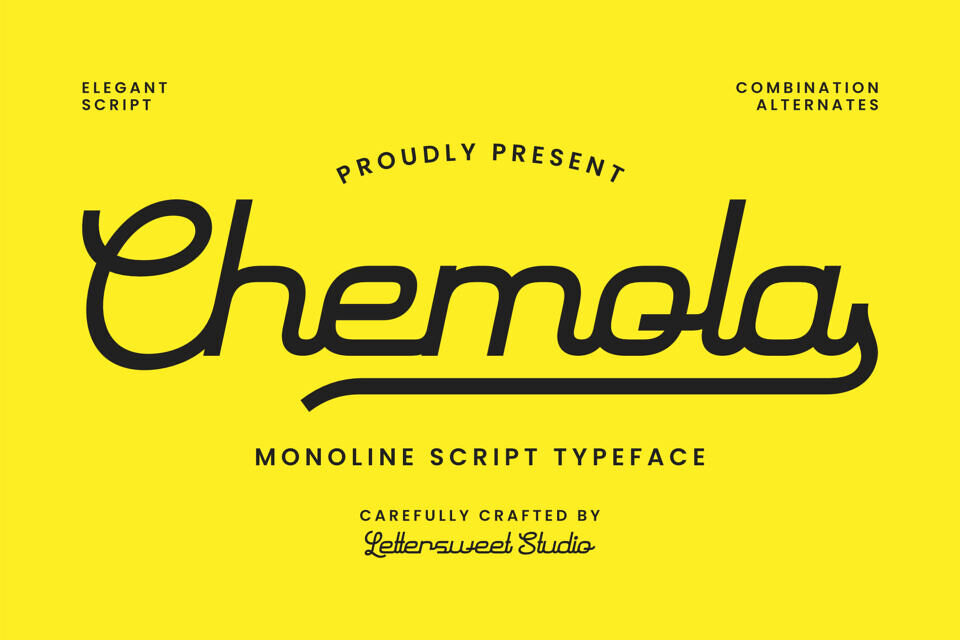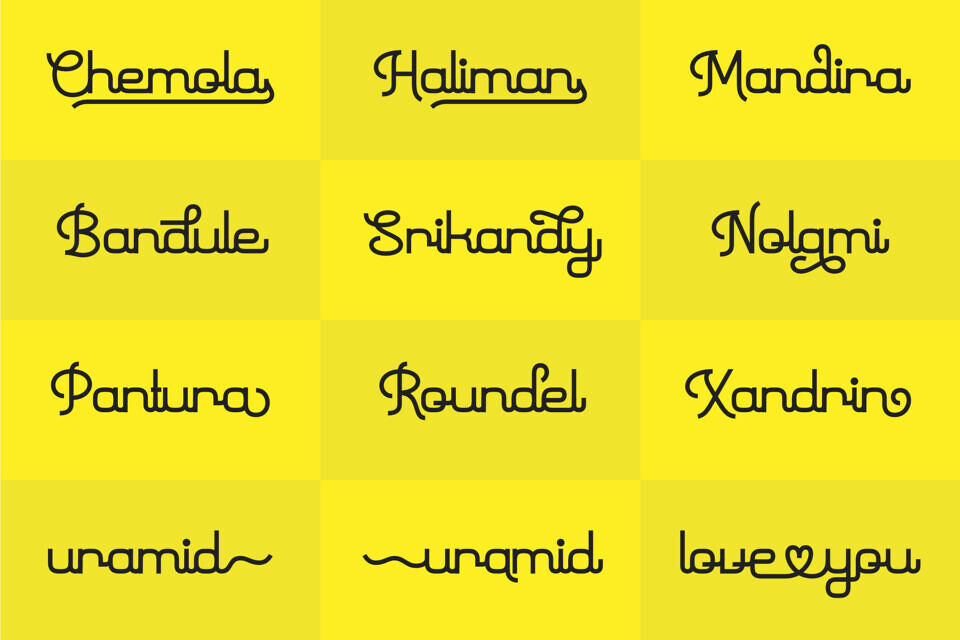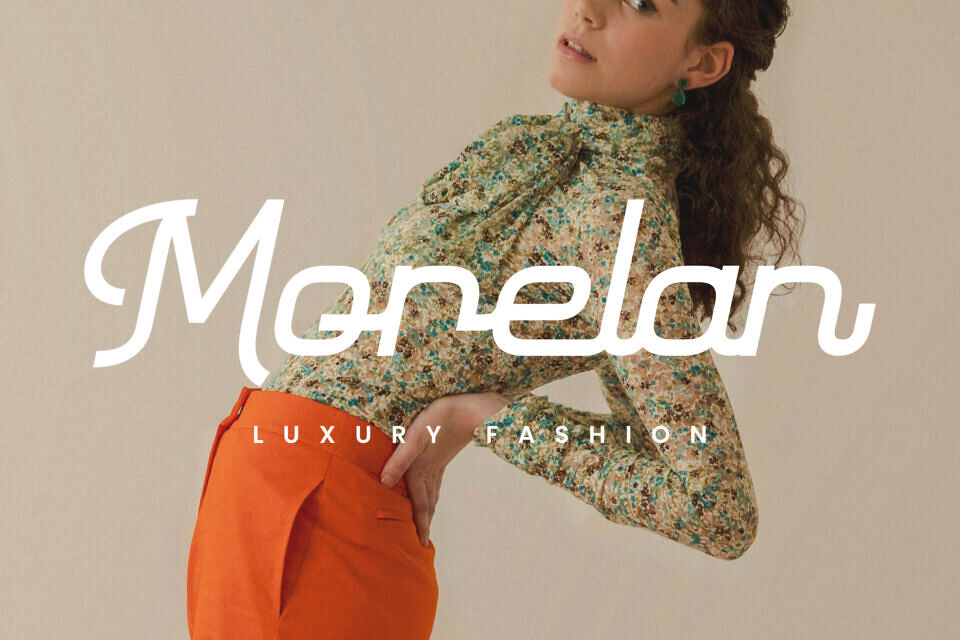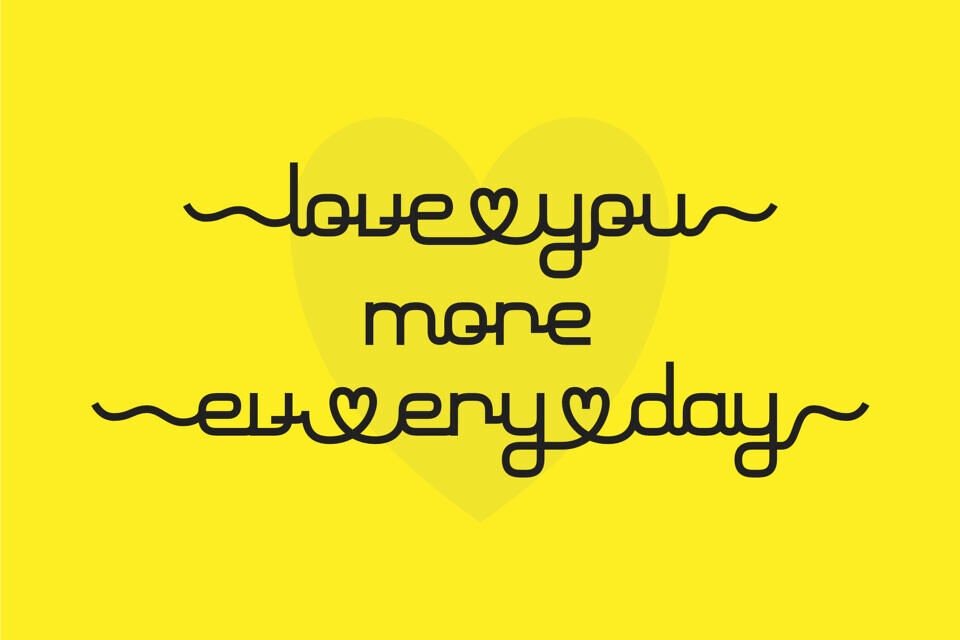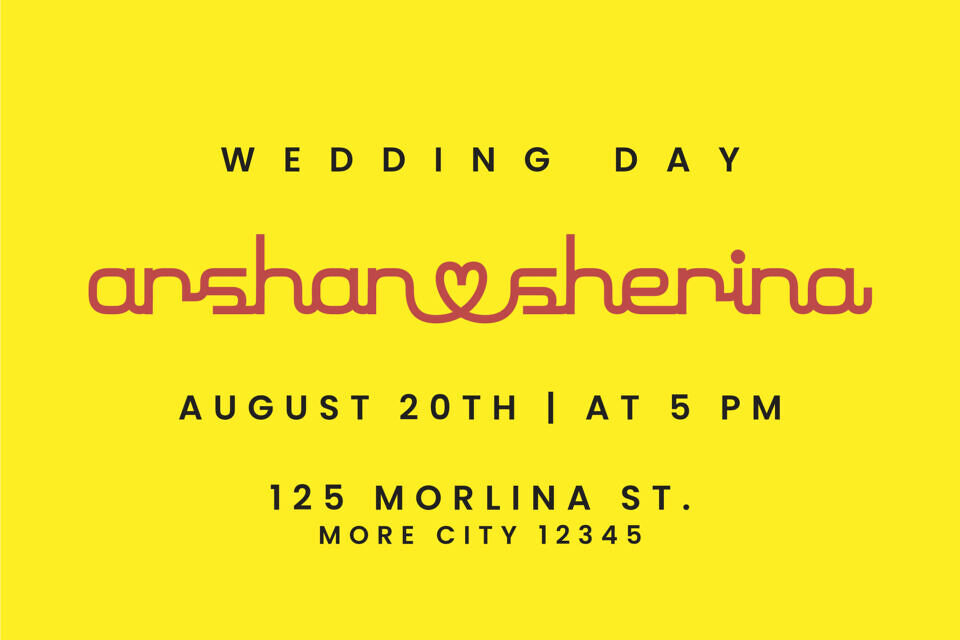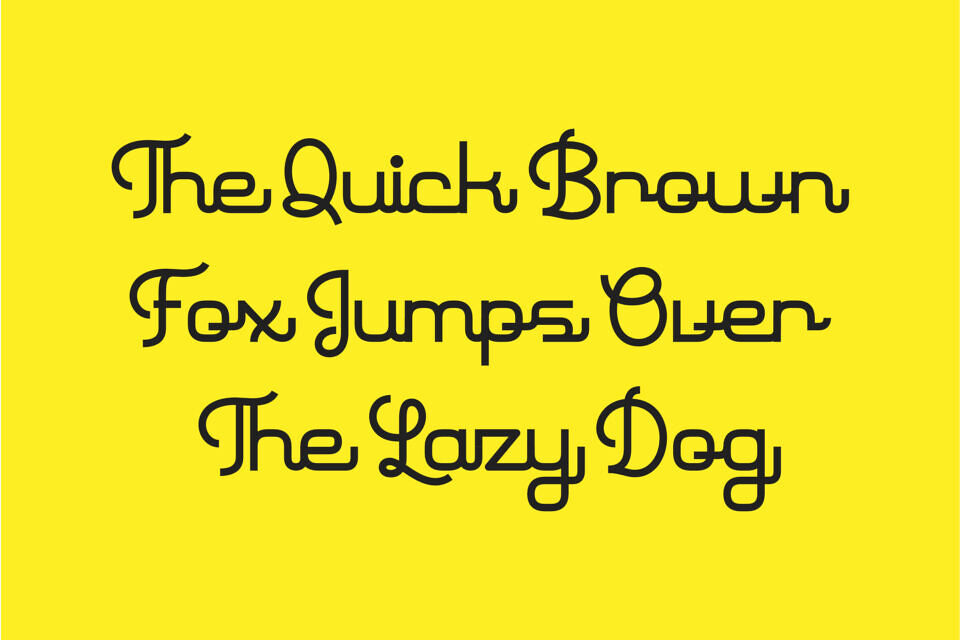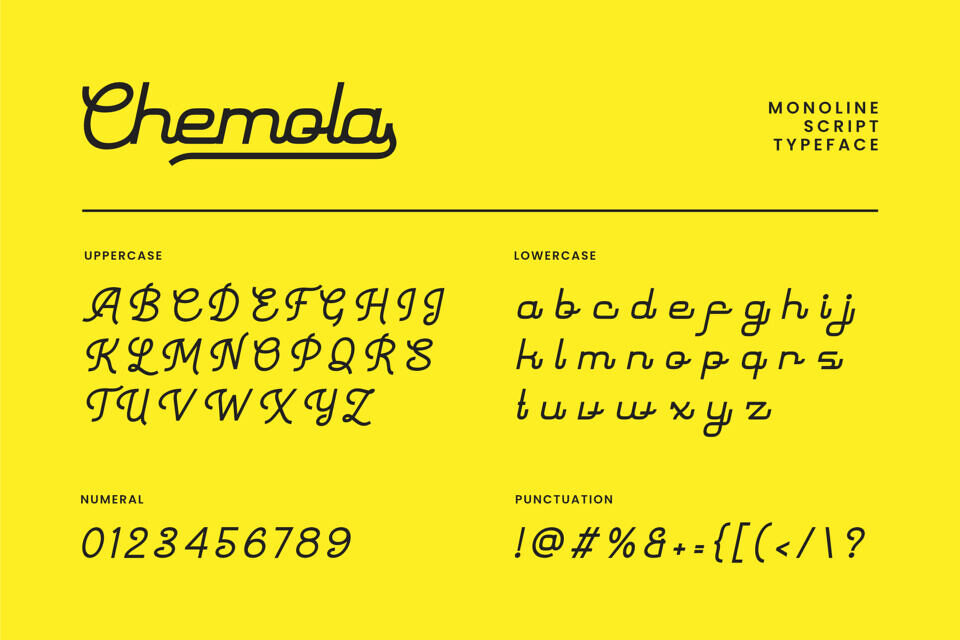
Chemola Font
Meet Chemola, a smooth monoline script typeface with clean curves, rounded corners, and a confident flow. Its easy connections, stylish swashes, and combination alternates let you build custom wordmarks in seconds—think sporty badges, retro signage, café branding, packaging, and standout social posts.
OpenType features (stylistic alternates & ligatures) help you swap characters for a more natural handwriting feel, while the long underline swash adds an eye-catching finishing touch.
Chemola is ideal for logos, headlines, merchandise, labels, and quotes that need an elegant yet modern personality. Comes in standard font formats with numerals and punctuation, plus support for common accents.